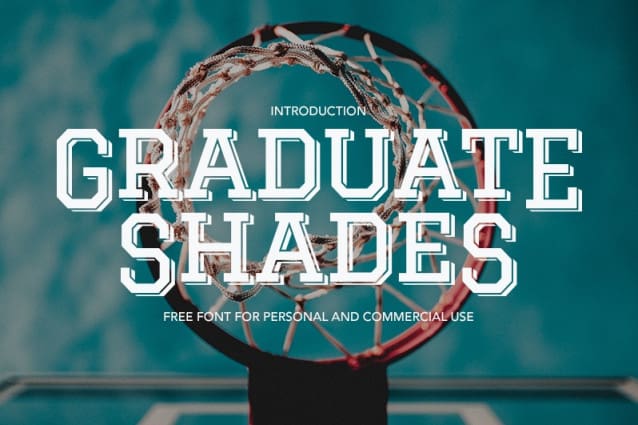
Graduate Shades Font
Graduate Shades Font, You can use it as a logo, badge, insignia, packaging, headline, poster, t-shirt/apparel, greeting card, and wedding invitation.
This font is a modified version of the Original Graduate font which has an OFL license. This font only provides Basic Latin characters, if many download this font version, I will update it with the addition of other characters.